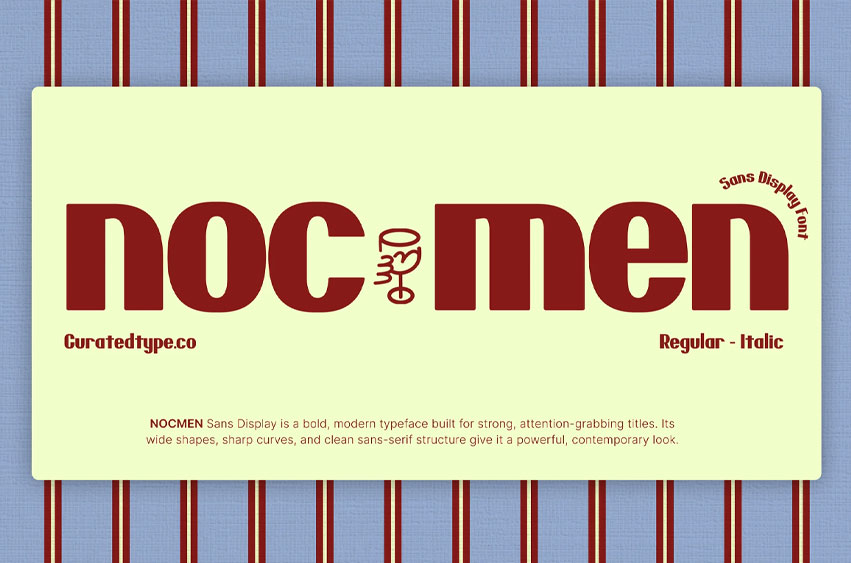
Nocmen Font is a condensed display font engineered for impact. Massive weight, deep inktraps, and a bold, blocky silhouette give your headlines instant authority. Legible at tight spacing and optimized for high-contrast, high-energy designs. Perfect for bold branding, poster art, editorial covers, and social campaigns, Nocmen lets you fit loud, memorable headlines into narrow layouts and command the visual hierarchy.